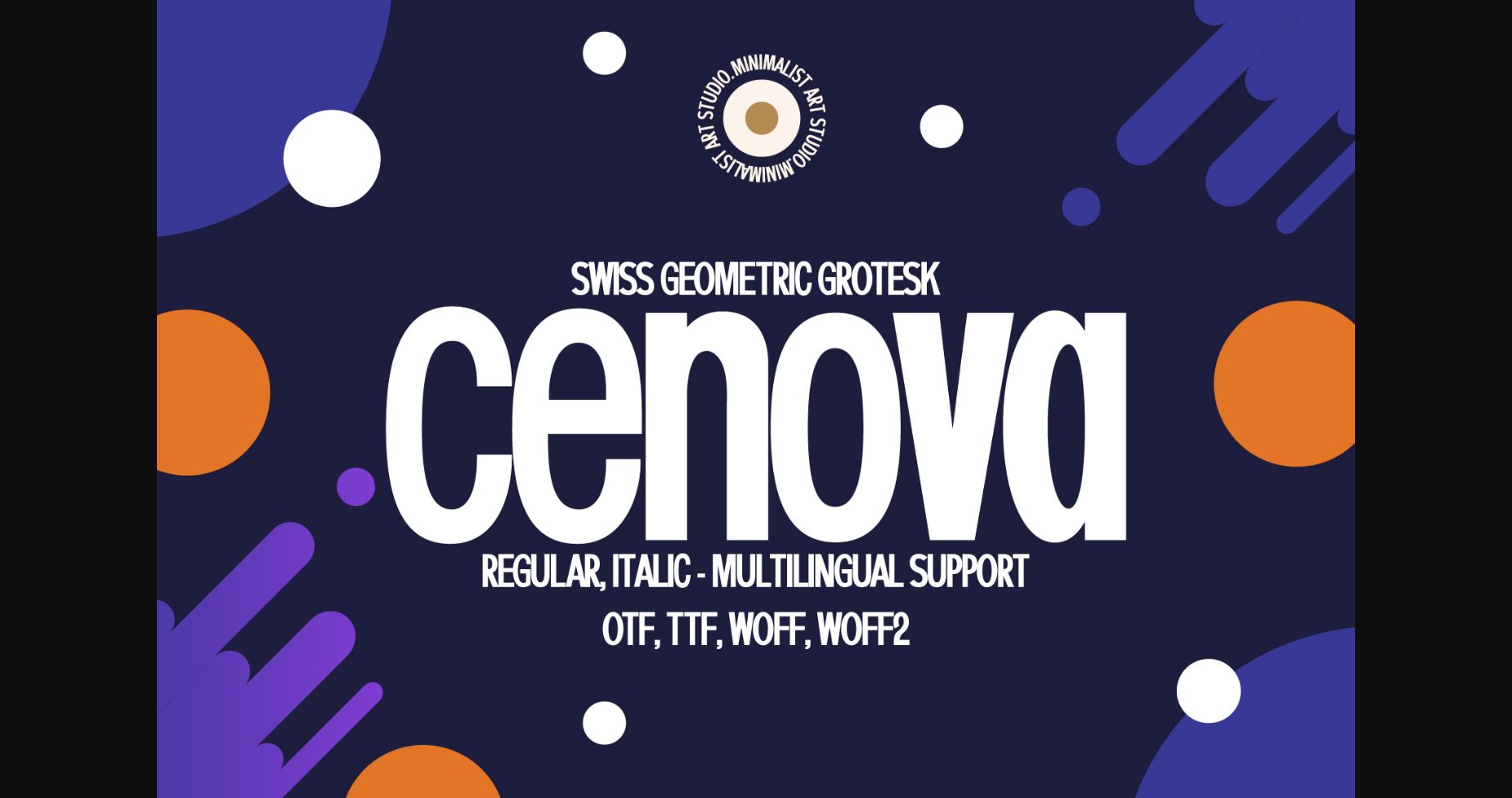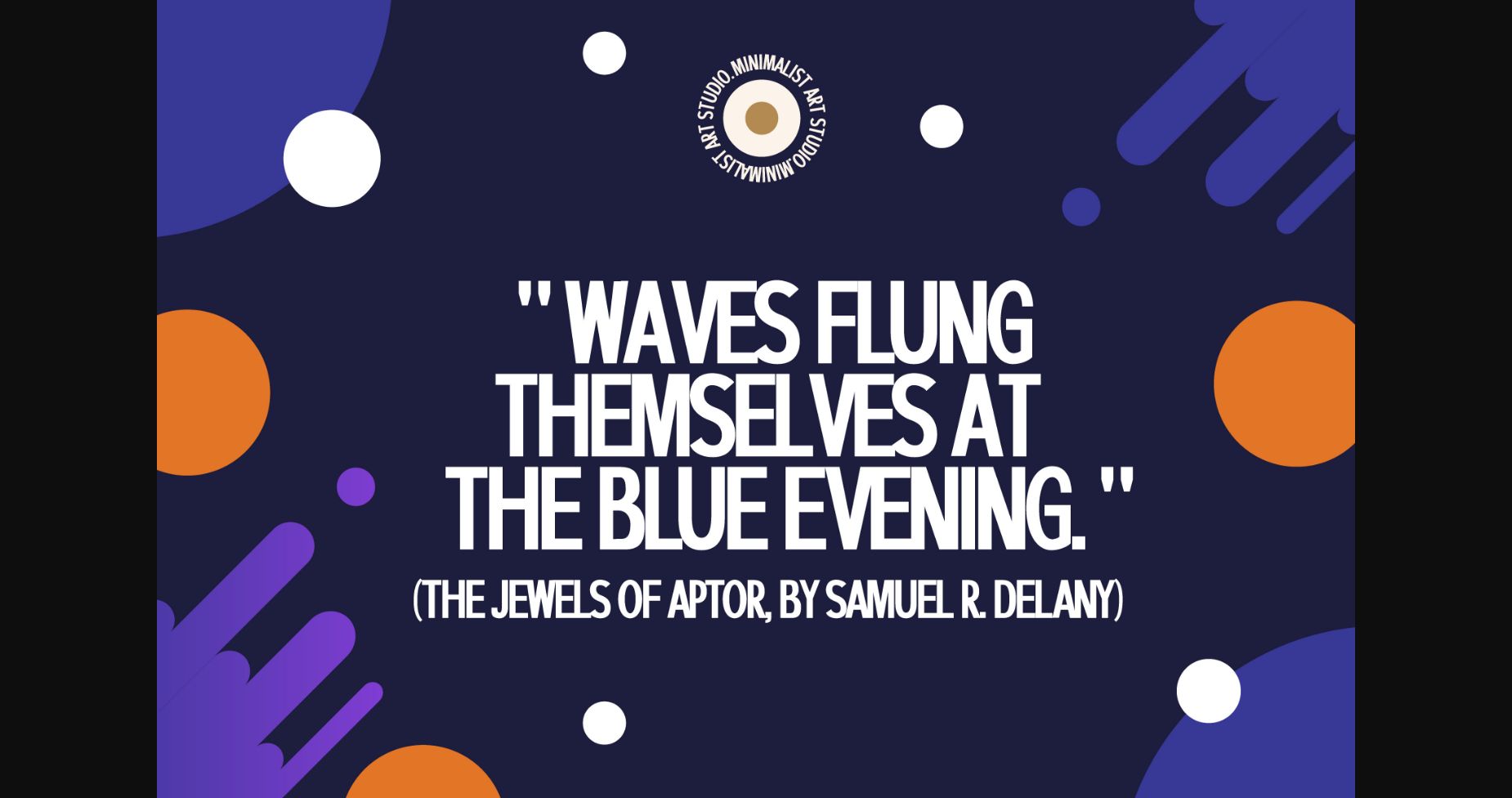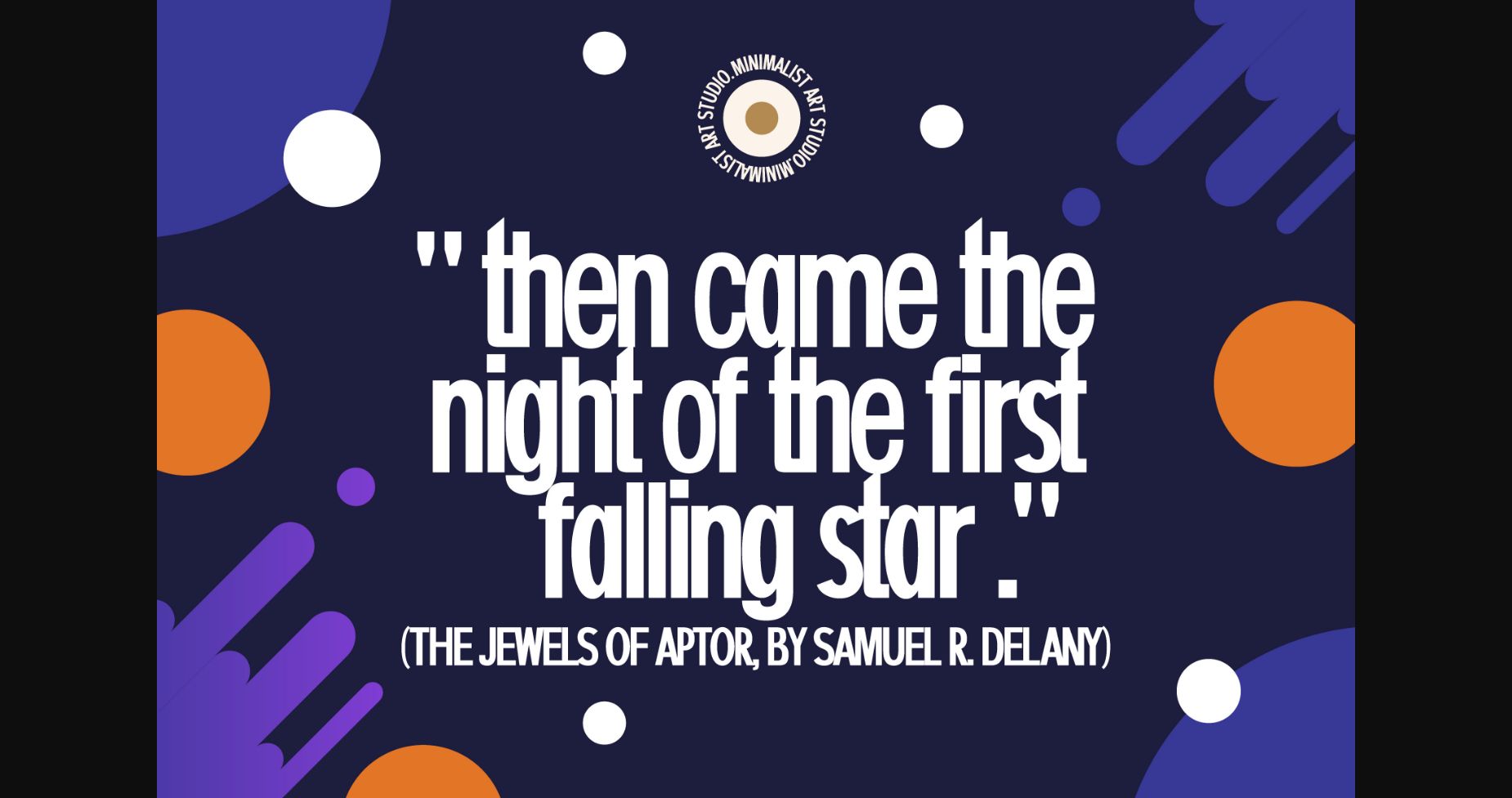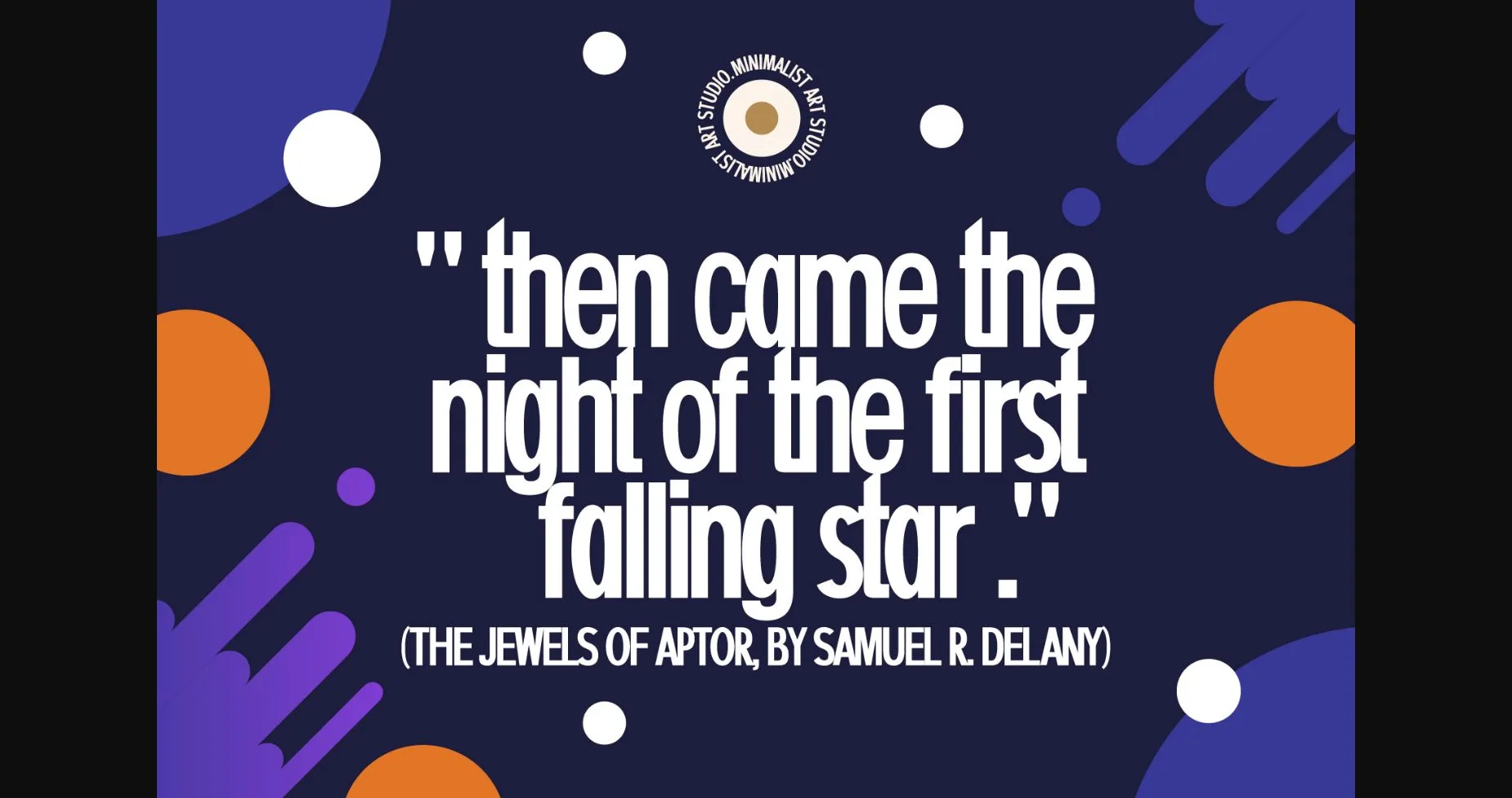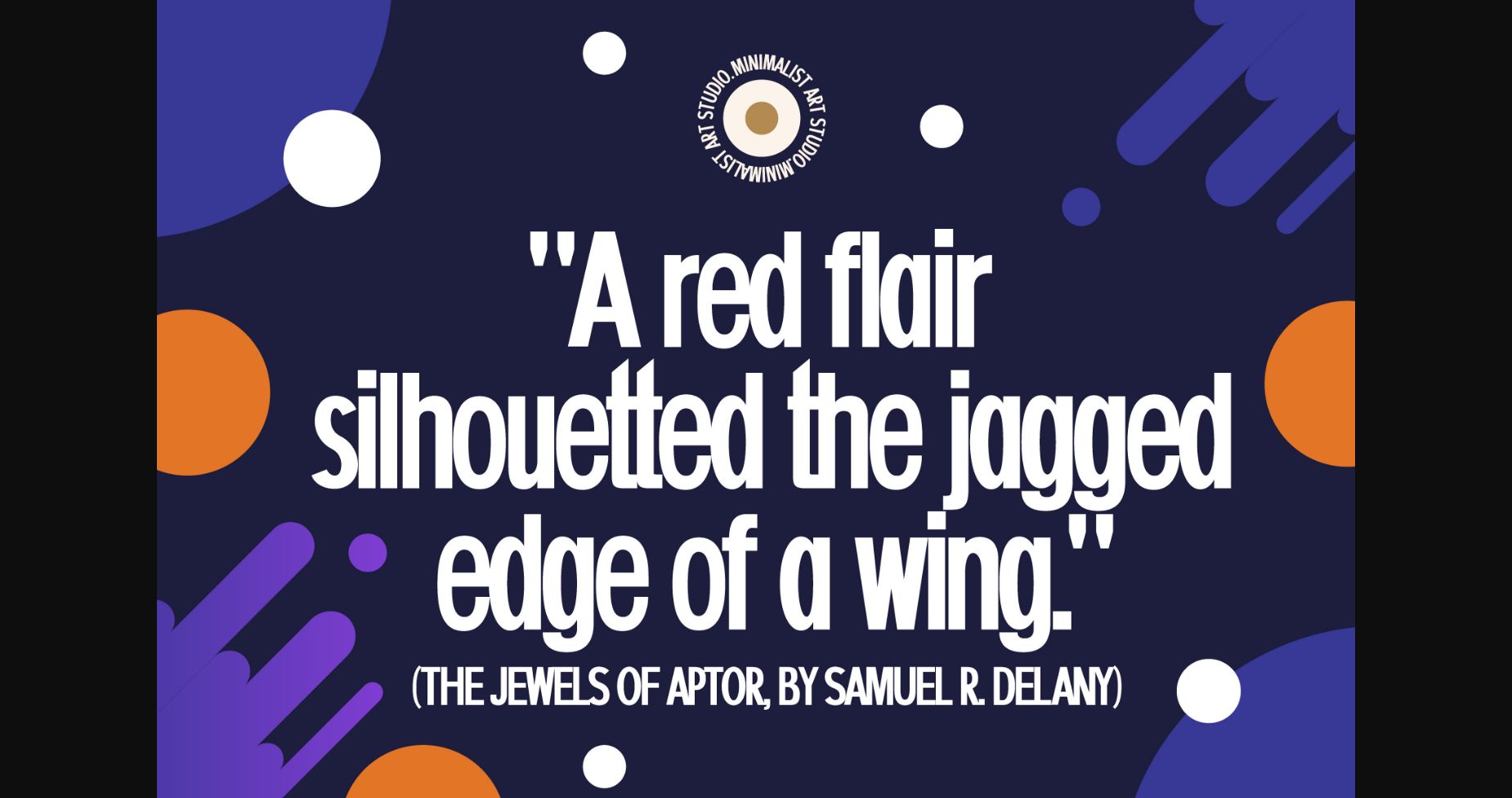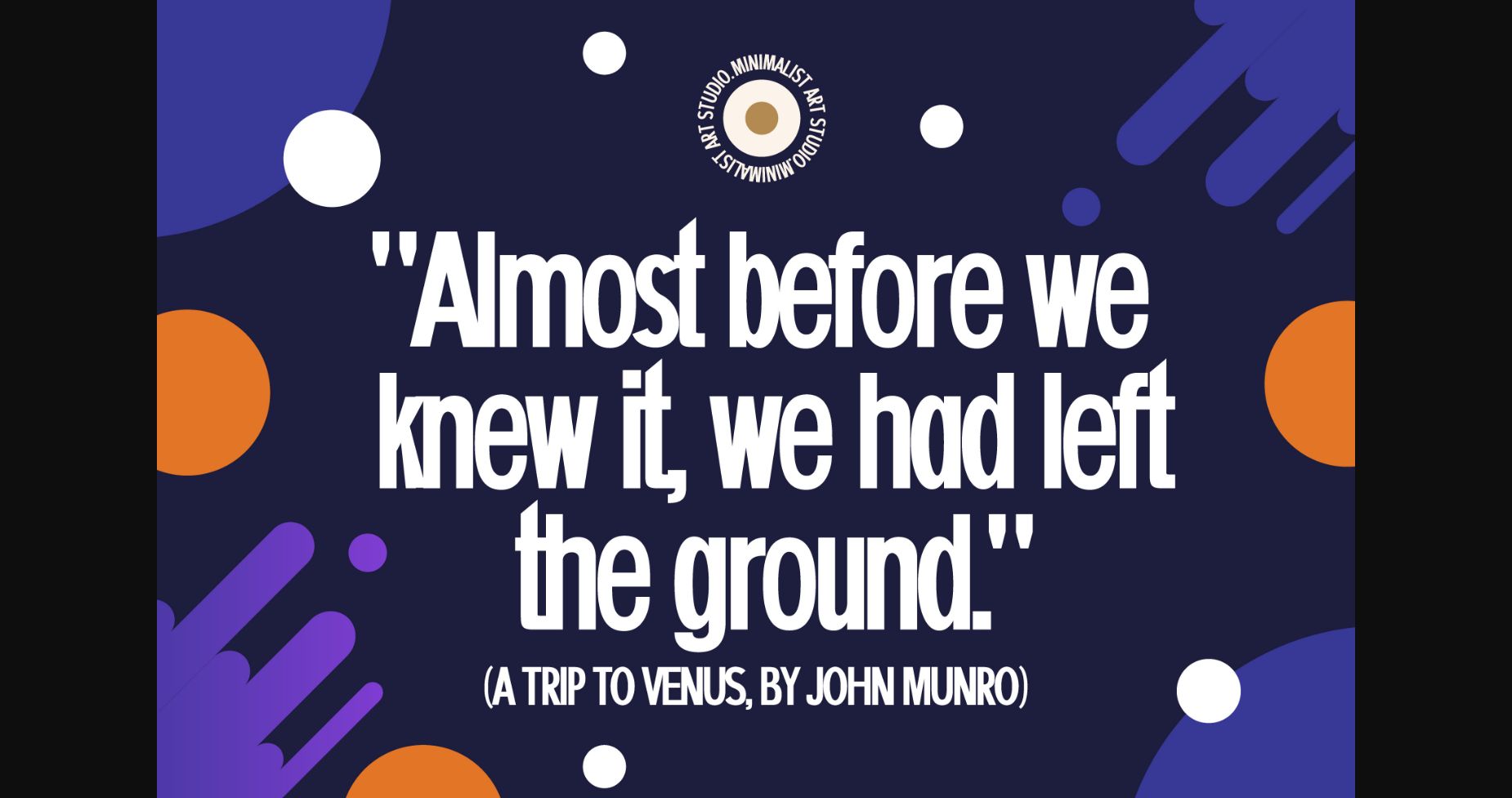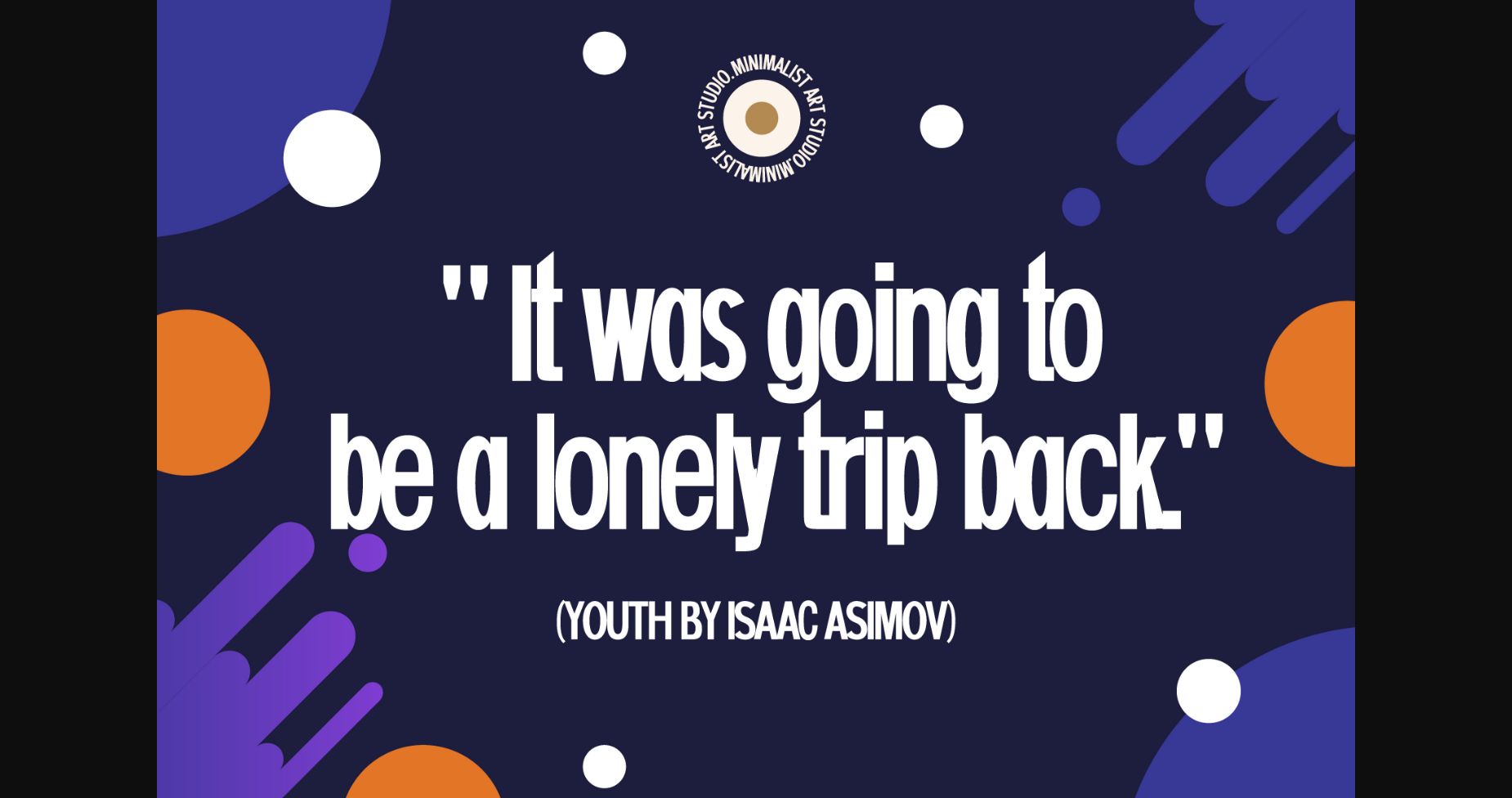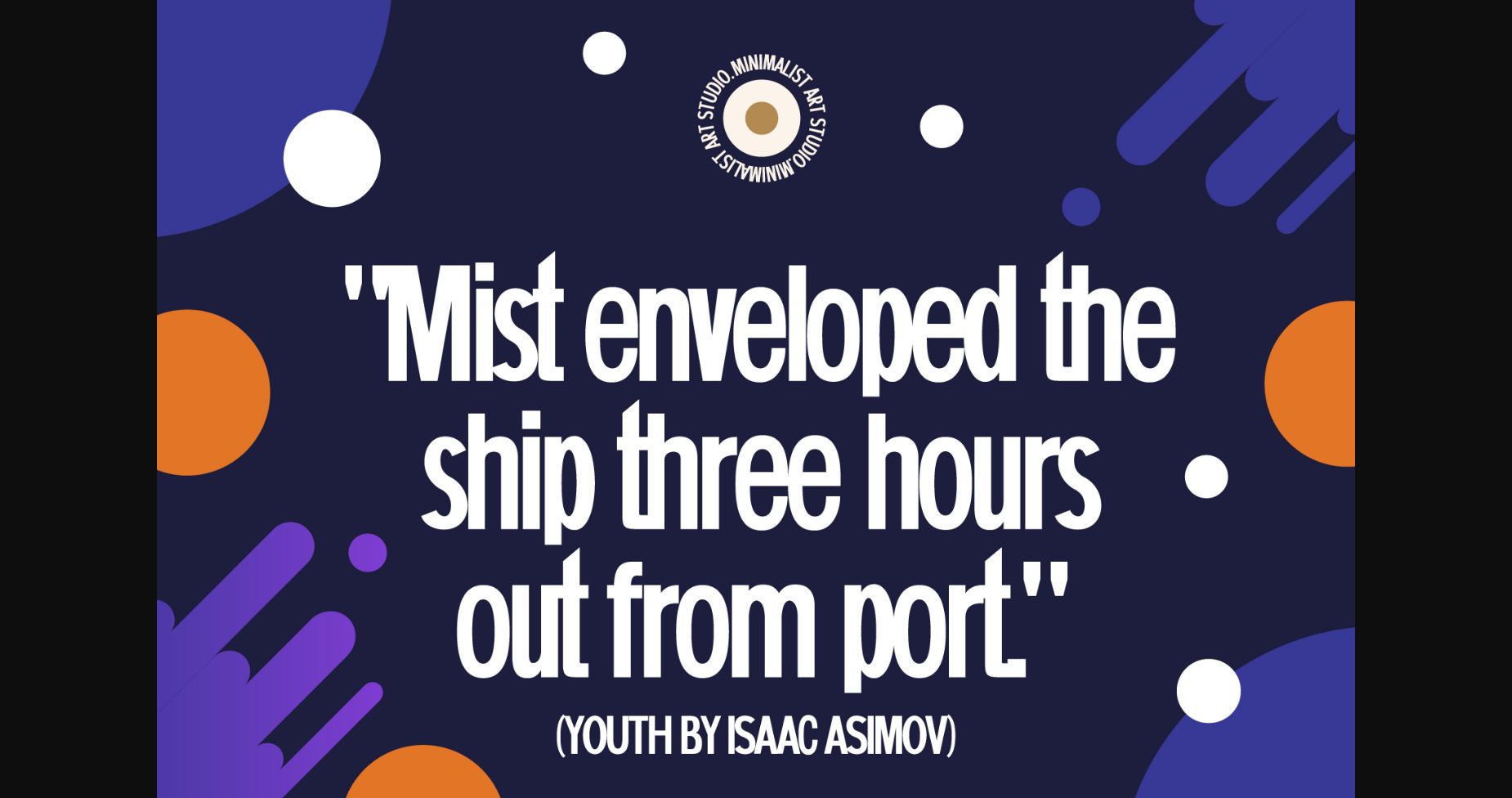
Cenova Font
About Cenova Font
Cenova is a versatile and stylish grotesque font that draws inspiration from Swiss design principles. With its geometric shapes and condensed letterforms, Cenova is the perfect choice for designers seeking a modern, sophisticated look.
At its core, Cenova is a font that was created with versatility in mind. The font’s geometric shapes and clean lines give it a crisp and modern look that is sure to catch the eye of anyone who sees it.